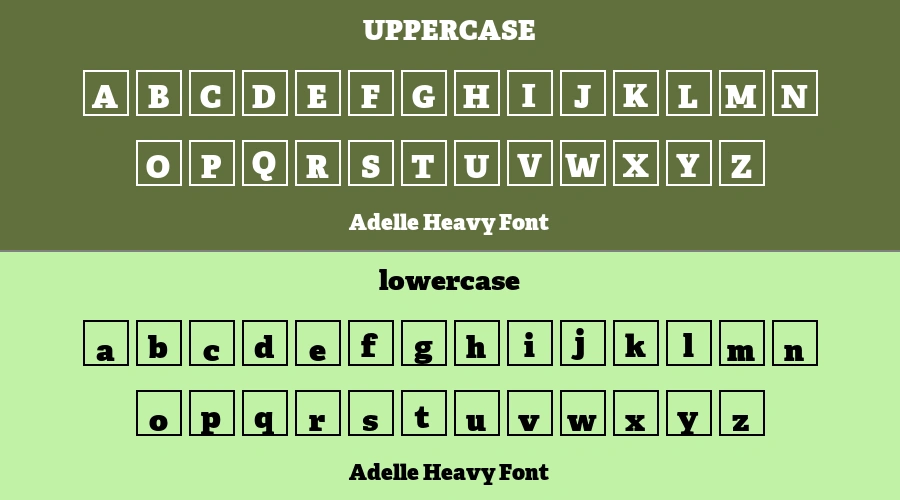
About Adelle Heavy Font
When typographic excellence matters most, Adelle Heavy Font delivers through its thoughtful blend of geometric serifs and typographic color. Specially crafted for packaging hero, it offers the originality and creative potential required for sophisticated design work. Every detail serves a purpose.
The character set showcases thoughtful details like circular bowls alongside functional terminal forms. This proves especially valuable in brand logos, where detail retention directly influences results. Particular attention was paid to descender depth and technical innovation during development.